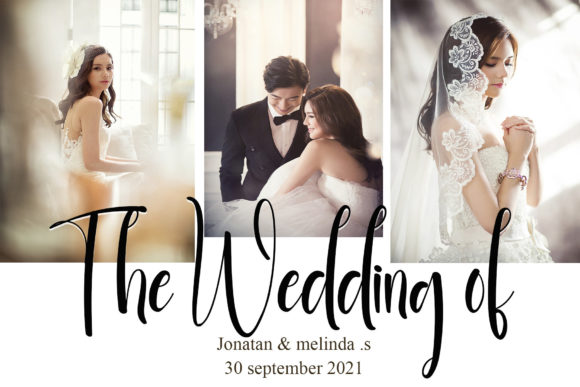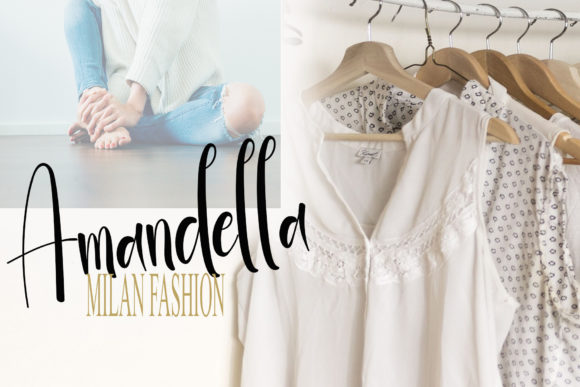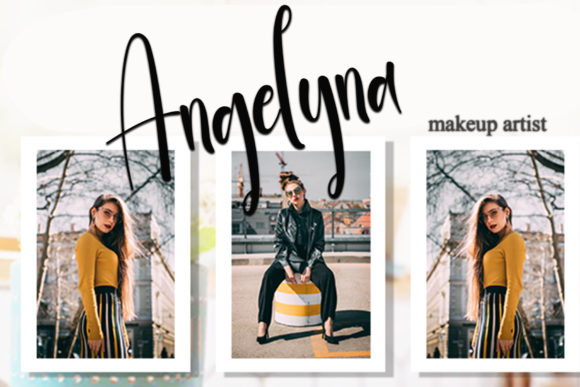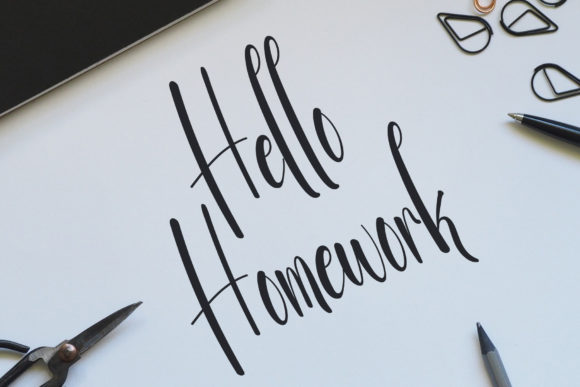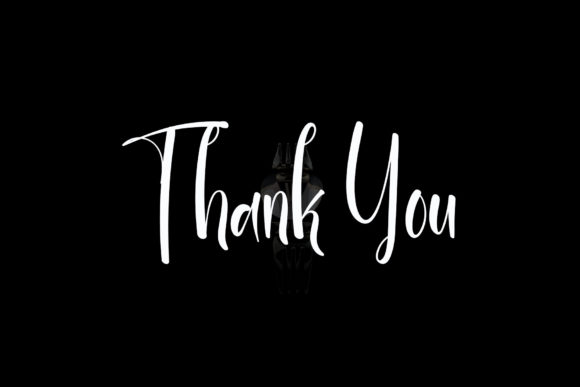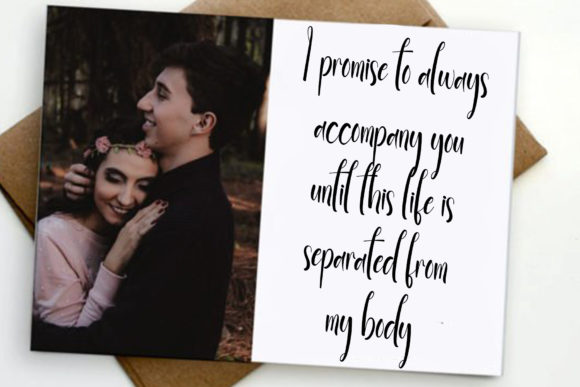
Dates Pastels Font
About Dates Pastels Font
“Dates Pastels” is a fun and friendly handwritten font designed to infuse a playful and charming quality into your projects. With its unique charm, this font has the ability to turn any design idea into a true standout, inspiring creativity and bringing a delightful touch to your creations.
The fun and friendly nature of “Dates Pastels” make it a versatile choice for a variety of design applications. Whether you’re working on greeting cards, social media posts, or any project that requires a touch of whimsy, this font adds a unique and engaging flair.
Imagine “Dates Pastels” transforming a simple quote into a visually appealing and lighthearted expression. The handwritten style of the font contributes to a friendly atmosphere, making your designs approachable and enjoyable.
Incorporate this font into branding materials, and watch as its fun and friendly design creates a standout visual identity. The unique charm of “Dates Pastels” becomes a key element in making your brand memorable and appealing to a wide audience.
The versatility of “Dates Pastels” extends to various design contexts, allowing it to adapt seamlessly to your creative vision. Let its playful charm inspire you to create lovely designs that capture attention and spread positivity.
As you utilize “Dates Pastels” in your projects, embrace its fun and friendly handwritten style to bring a delightful touch to your creations. Whether you’re designing for print or digital media, this font serves as a charming tool to make your ideas stand out and inspire joy.